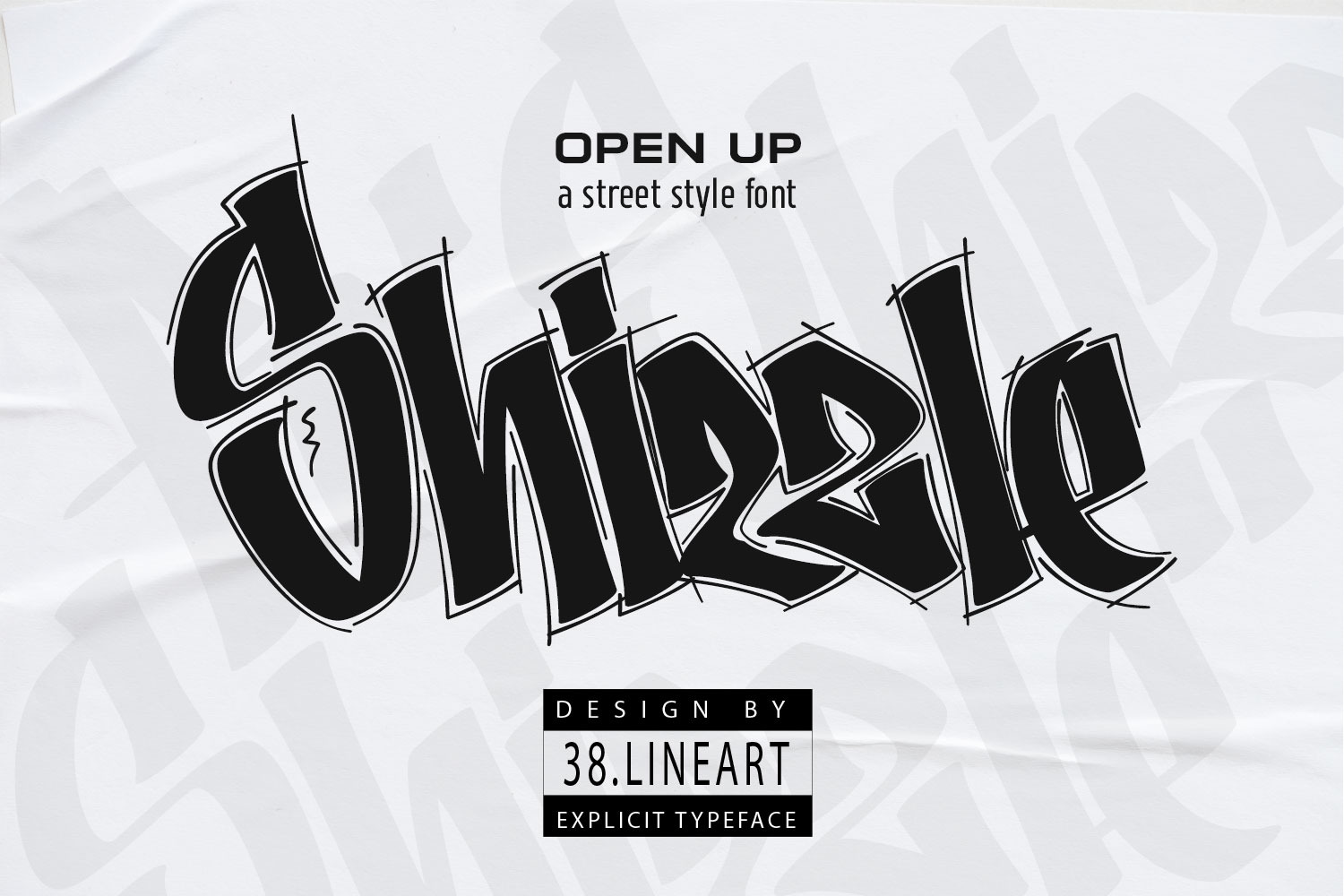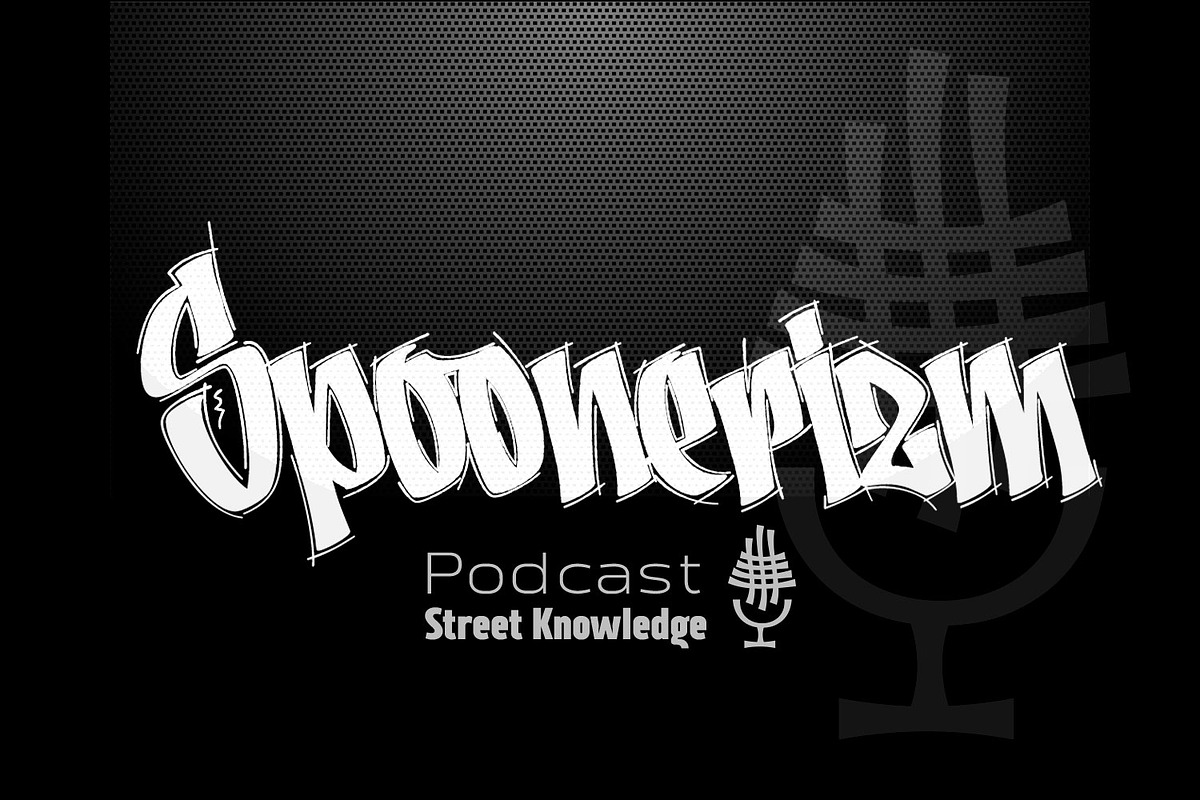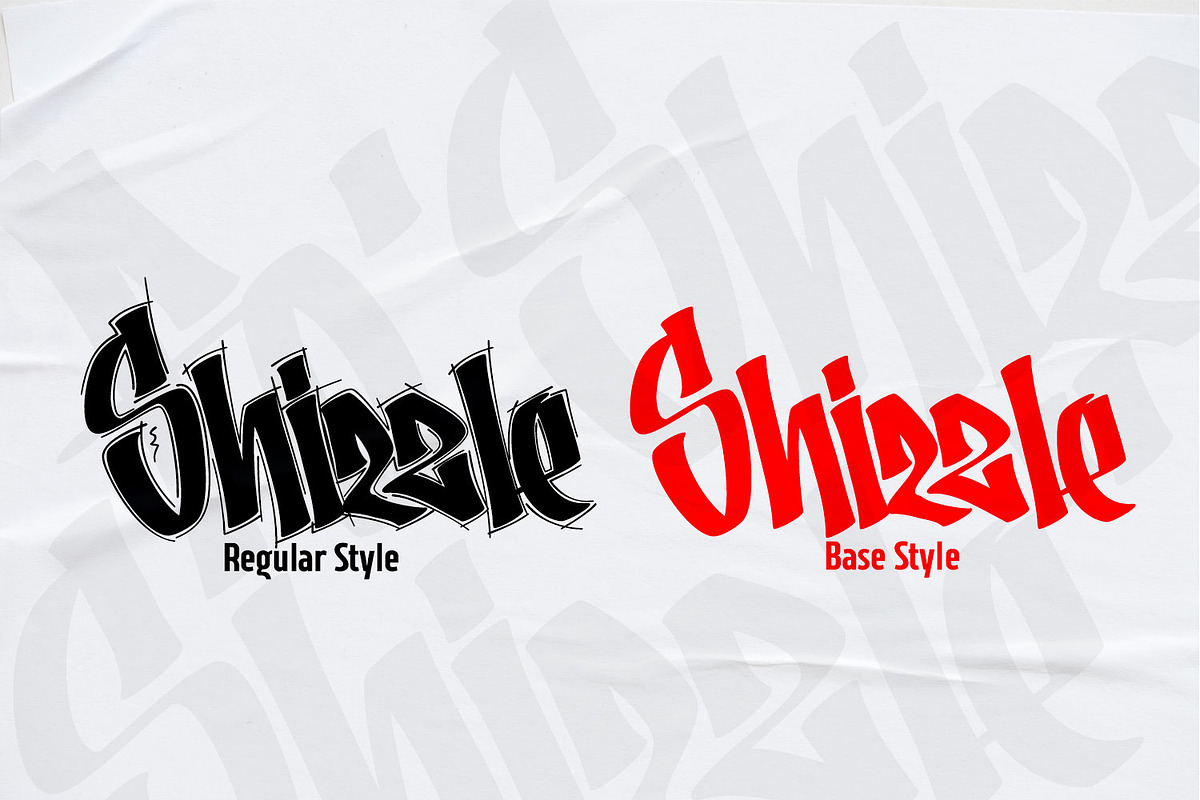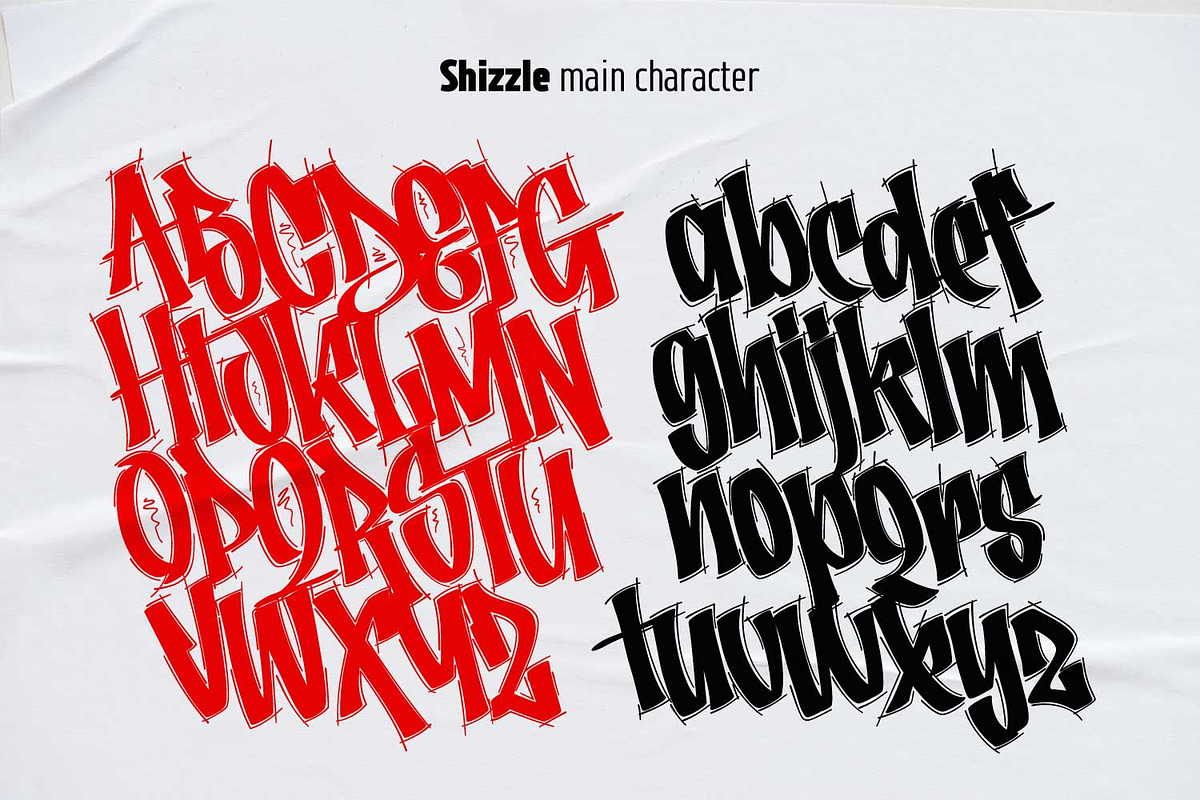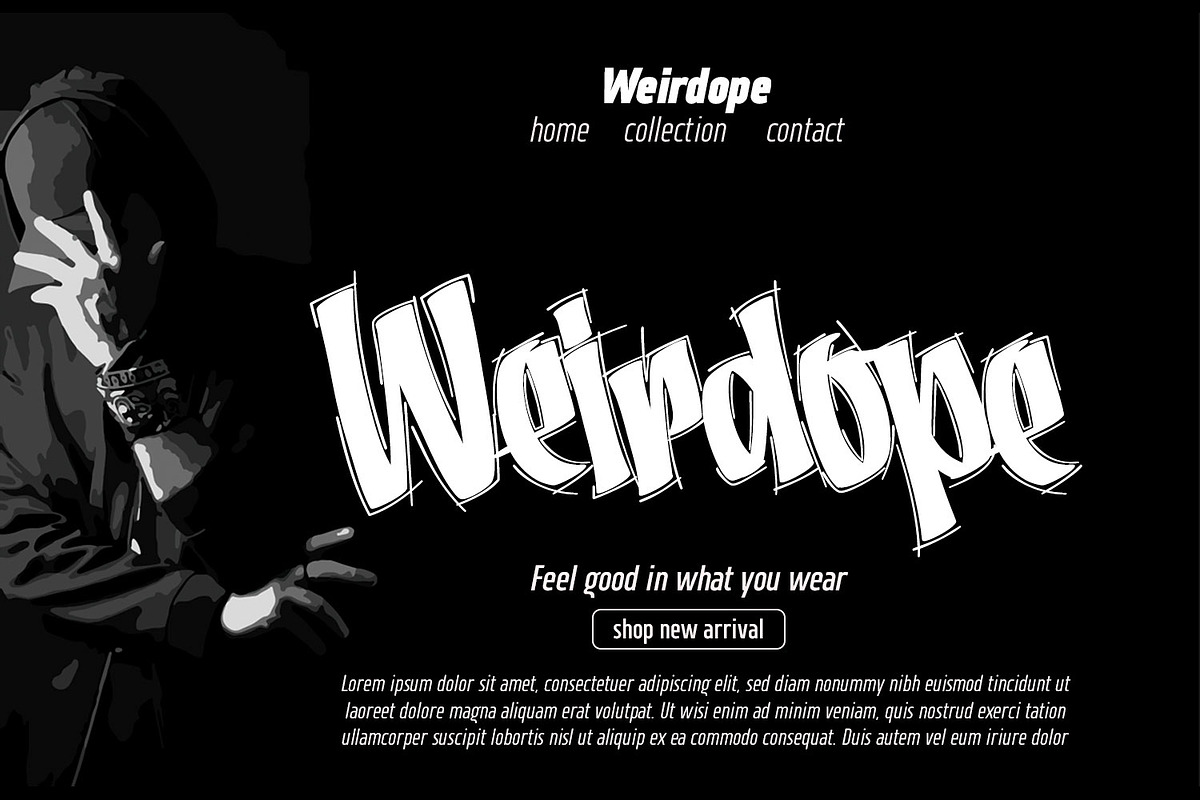
Shizzle - Graffiti Typeface
Shizzle is a font with a graffiti marker style. The lettterform of ‘Shizzle’ essentially made by the combination of downward and upward stroke base on -15 degres angle guideline. The basic of downward stroke is pulling pen from the top left to thw bottom right with full width of marker, then the basic shape of upward stroke look like the ligh flick by using the tip of the pen from bottom right to the top left.
Inspired by Hip Hop and Rap style style. ‘Shizzle’ is a slang way of saying "Sure". People generally use it to communicate agreement to another person. This term is a product of Snoop Dogg's penchant for replacing the end of words with "izzle" to sound cooler.
And ‘Fo Shizzle’ (for sure) this font offers beautiful typographic harmony for a diversity of design projects, including logos & branding, social media posts and advertisements, especially with graffiti look.